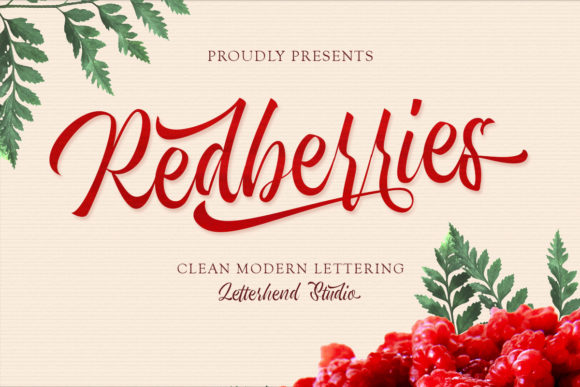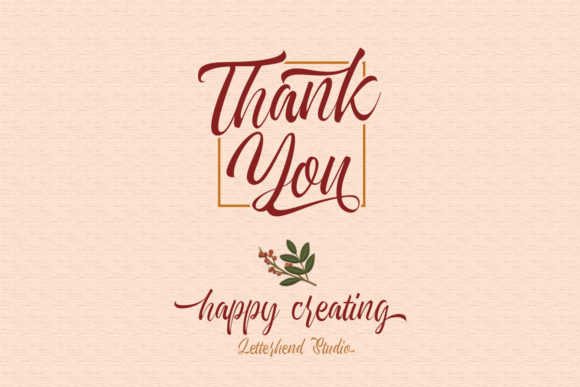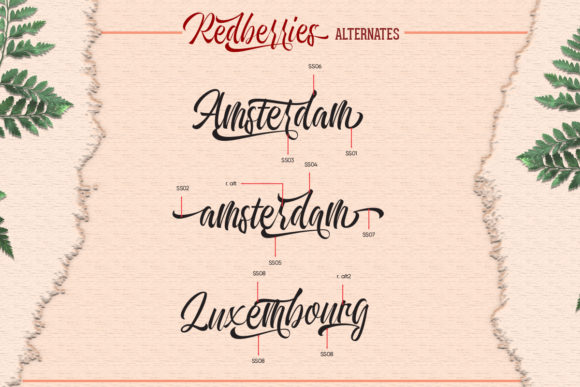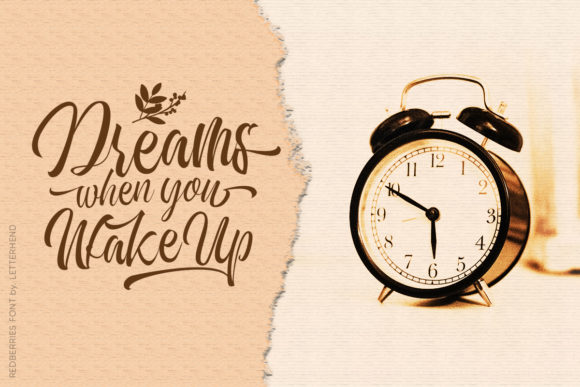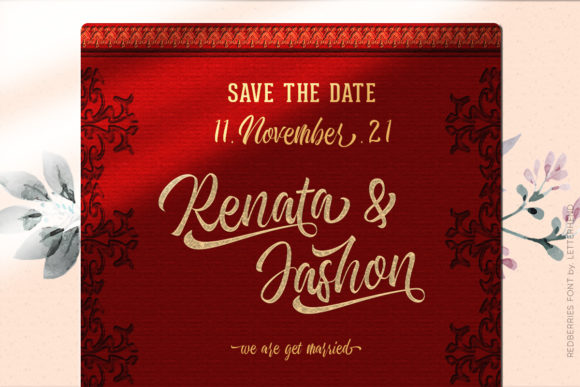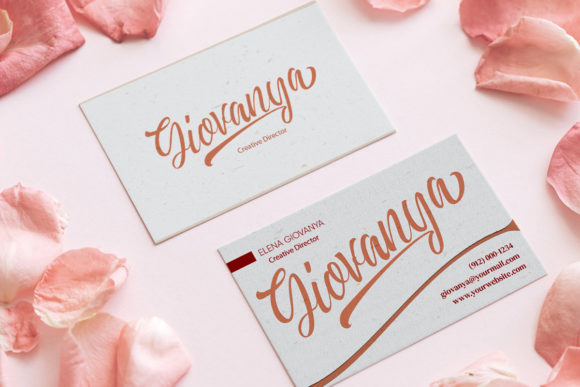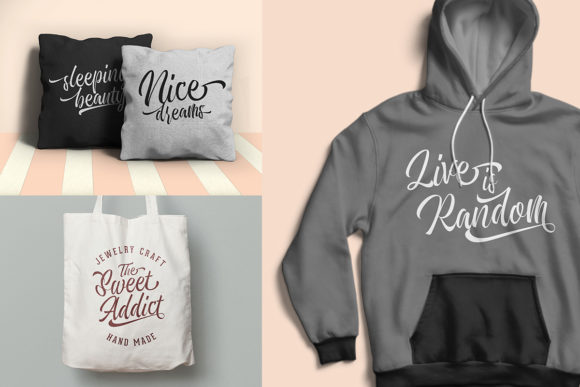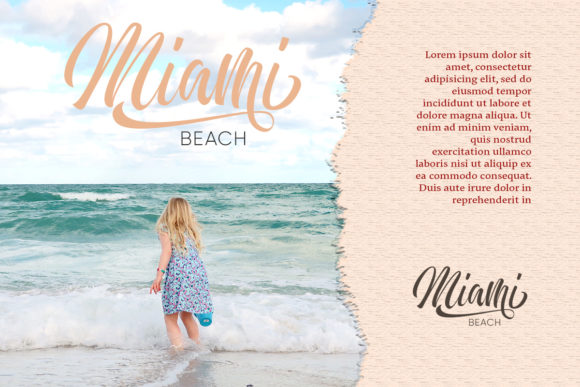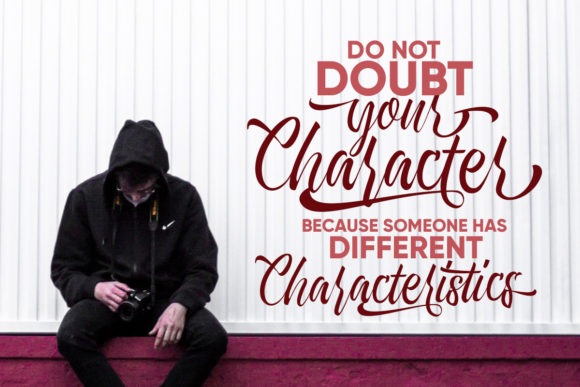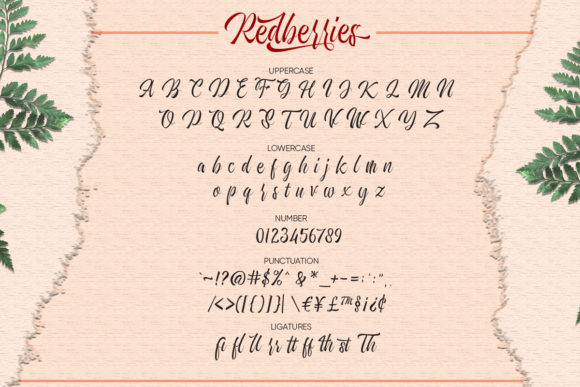
Redberries Font
Redberries: Embrace the Incredibly Distinct and Timeless Handwritten Font
Introducing Redberries, a font that exudes incredible distinctiveness, delicacy, and timelessness in every stroke. With its handwritten style, this font is a stunning choice for a wide range of designs. Whether it’s elegant wedding invitations, heartfelt thank you cards, inspiring quotes, charming greeting cards, professional logos, or stylish business cards—Redberries adds a touch of sophistication and uniqueness with its timeless charm.
The allure of Redberries lies in its captivating distinctiveness. Each letter carries a unique flair, creating an enchanting presence that sets it apart from the rest.
Designing with Redberries is a delightful experience. Whether you’re creating enchanting wedding invitations, expressing gratitude with thank you cards, or crafting beautiful quotes and greeting cards, this font elevates your work to new levels of refinement.
Gorgeous designs come to life with Redberries’ delicate touch. Whether you’re designing logos for businesses seeking a personalized touch or creating stylish business cards that leave a lasting impression, this font adds a sense of elegance that captivates the eye.
For special occasions like weddings, Redberries shines brightly. It complements the romantic atmosphere, making each invitation a work of art that sets the stage for a memorable celebration.
And when it comes to unleashing your creativity, Redberries won’t disappoint. Its timeless charm allows it to complement a wide array of design concepts, from classic and timeless to modern and chic.
In conclusion, Redberries is more than just a font; it’s an incredibly distinct masterpiece. Embrace its delicate touch, and let it become the muse for your most cherished projects. Whether you’re celebrating love, expressing gratitude, sharing inspiring words, or crafting professional designs, Redberries will be your trusted companion, adding a touch of sophistication and charm. Allow this font to unlock the full potential of your creativity and watch as your designs come alive with the incredible distinctiveness of Redberries. Fall in love with its timeless beauty, and let it be the guiding light that leads you to create truly stunning designs that leave a lasting impression on all who behold them.